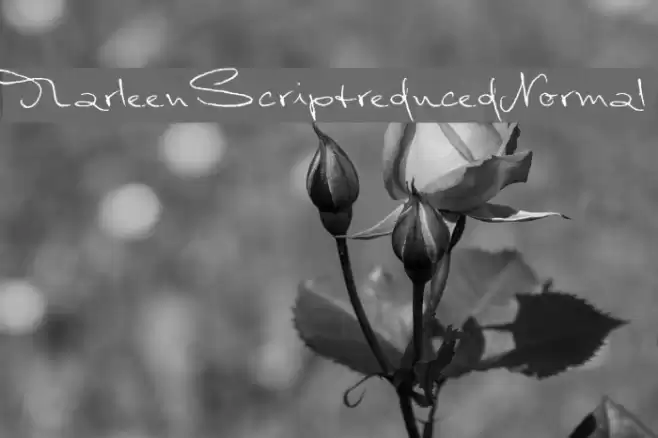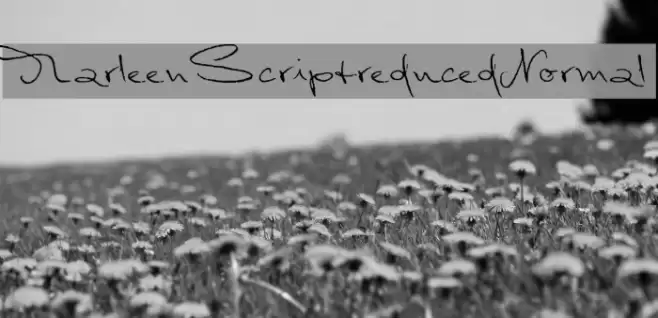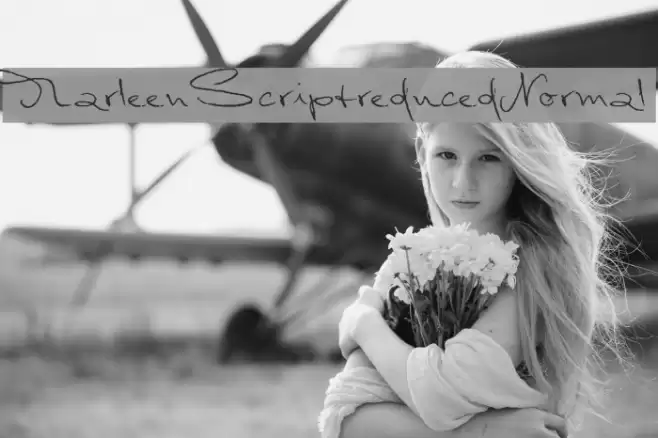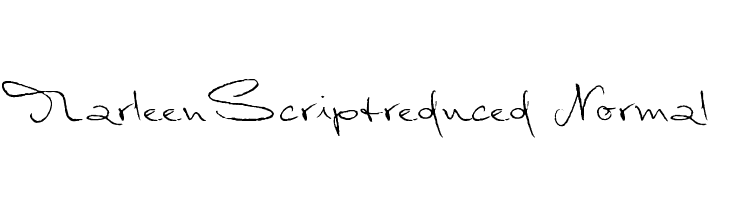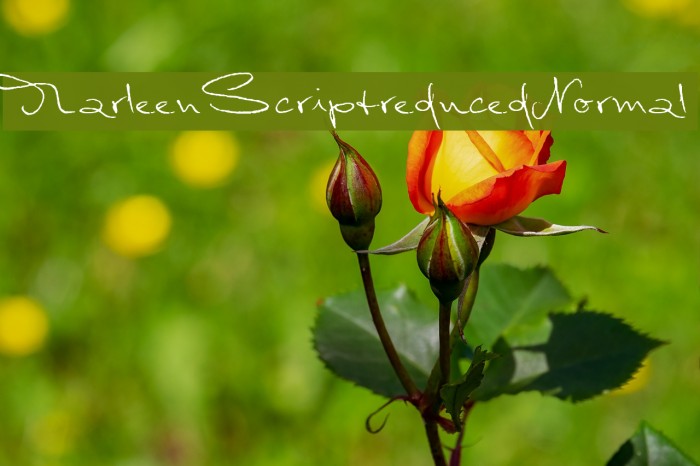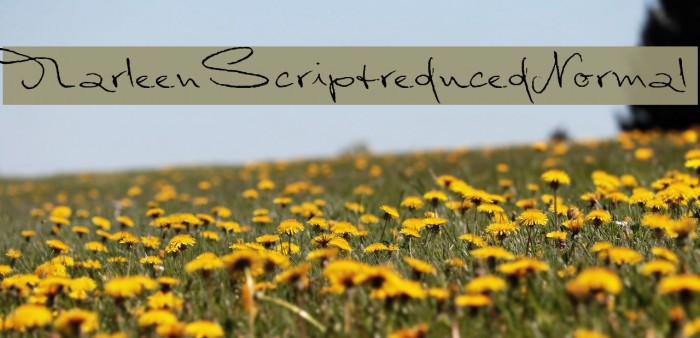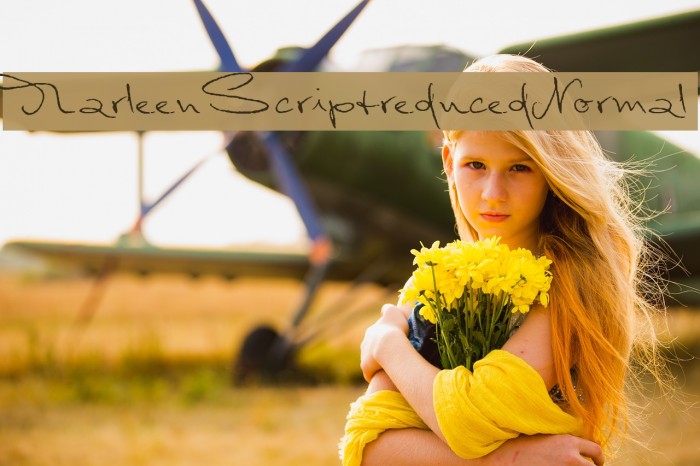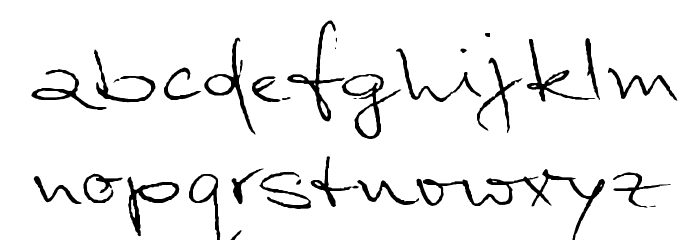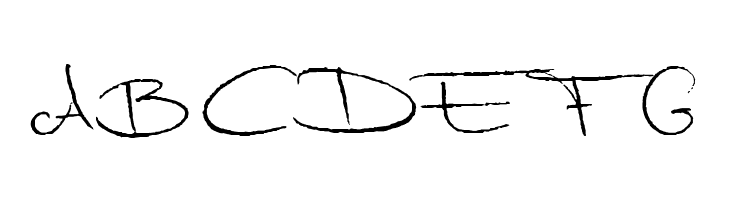
MarleenScriptreduced-Normal Font
MarleenScriptreduced-Normal Description
This font features a dynamic and expressive handwritten style, characterized by its fluid and organic strokes. The letters exhibit a natural flow, with varying thickness that adds a sense of movement and energy. The uppercase letters are bold and prominent, while the lowercase letters maintain a consistent rhythm, enhancing readability. The font's unique charm lies in its irregularities, giving it a personal and artistic touch. It is well-suited for creative projects that require a personal or informal tone, such as invitations, greeting cards, or artistic branding. The overall appearance is both elegant and approachable, making it versatile for various design needs.
A dynamic and expressive handwritten font with fluid, organic strokes from Handwritten fonts.
- Proposed Projects: Invitations, greeting cards, artistic branding, personal projects.
- Use Case: Logos, Headlines, Artistic projects